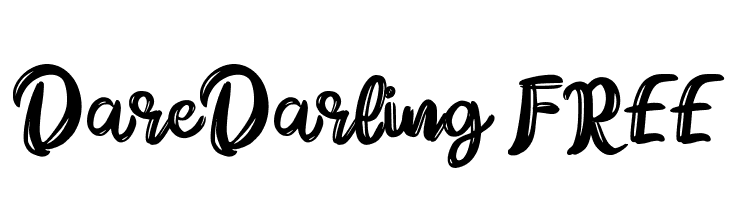
( Fonts by Maelle.K - Thomas Boucherie )
A bold, decorative font with intricate, swirling designs and tight character spacing.
( Fonts by Januar Maulana )
A decorative and intricate font with swirling, organic shapes.
( Fonts by Dondon Nillo )
An intricate, decorative font with swirling, thorn-like embellishments.
( Fonts by Dondon Nillo )
An intricate, decorative italic font with swirling, thorn-like embellishments.
A decorative, mystical font with swirling, abstract characters and a worn texture.
An artistic, calligraphic font with swirling, dynamic lines and elaborate flourishes.
( Fonts by Poemhaiku )
A highly decorative and artistic font with intricate, swirling line work and high contrast.
A playful, textured font with a hand-drawn, swirling design.
A whimsical and decorative font with intricate, curling serifs and elegant curves.
An intricate and artistic font with swirling, elongated strokes and decorative flourishes.
( Fonts by Eva Barabasne Olasz )
An intricate, decorative font with swirling, rope-like patterns.
A bold, decorative font with intricate, swirling patterns and a vintage feel.
( Fonts by Paige Lyon )
A playful and whimsical font with curly, swirling elements.
A decorative and artistic font with intricate, swirling lines and sharp edges.
A whimsical and decorative font with bold, swirling serifs and playful curves.
A decorative, bold typeface with intricate, swirling designs and a vintage flair.
An ornate and decorative font with bold, swirling serifs and intricate detailing.
A whimsical and decorative font with swirling embellishments.
An ornate and decorative font with intricate swirling patterns.
A decorative font with a swirling, spiral pattern for a dynamic and textured look.
A decorative and whimsical font with swirling embellishments and a bold, artistic style.
( Fonts by weknow )
An artistic, hand-drawn font with swirling, dynamic strokes.
A bold, decorative font with intricate, swirling details and a calligraphic flair.
A decorative, hand-drawn font with swirling, sketch-like strokes.
A decorative font with swirling, wave-like elements and consistent stroke weight.
An ornate and decorative font with swirling embellishments.
A bold, psychedelic font with swirling, organic shapes and a retro flair.
A bold, decorative font with intricate, swirling details and a fantasy-inspired style.
A playful, decorative font with swirling embellishments and whimsical charm.
A decorative font with swirling embellishments and a whimsical style.